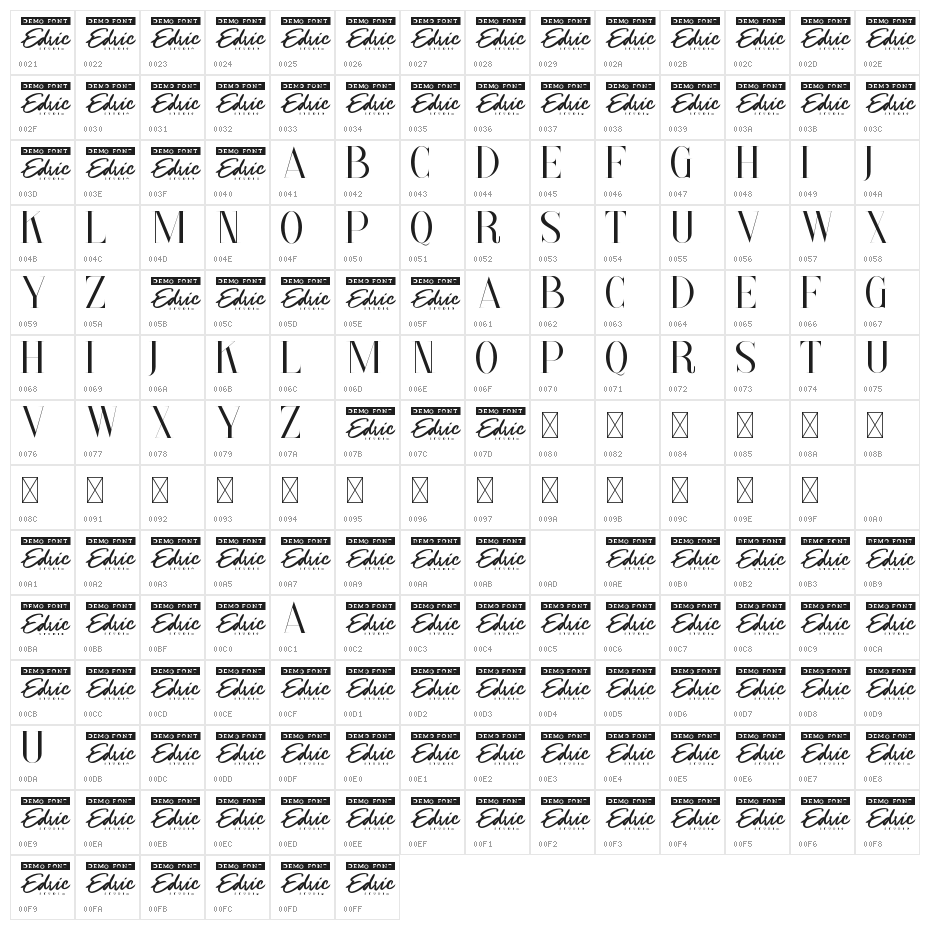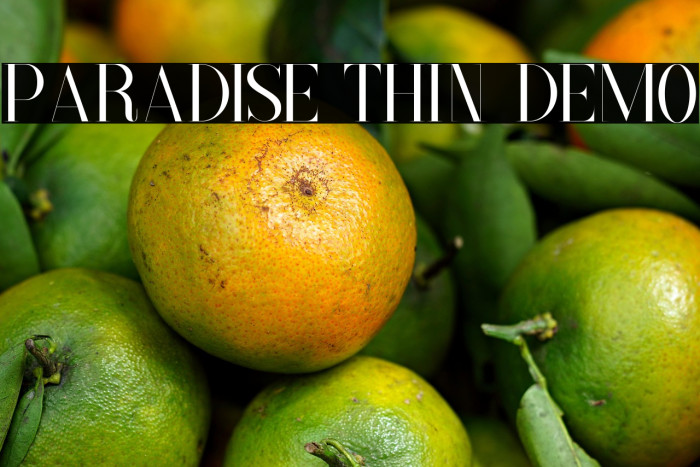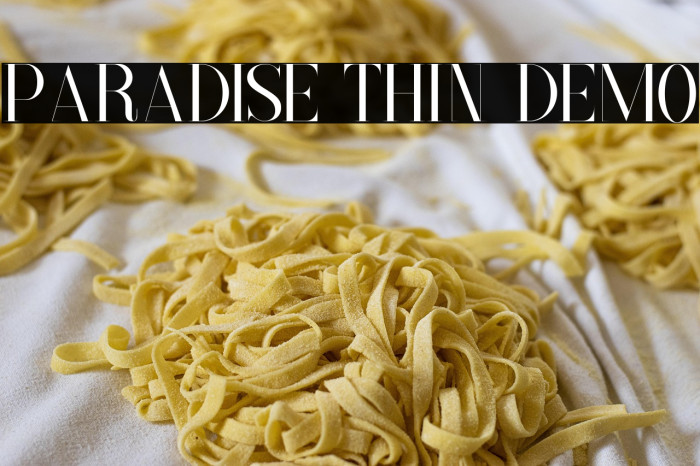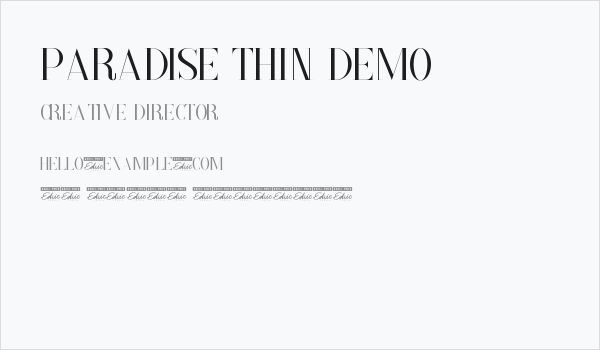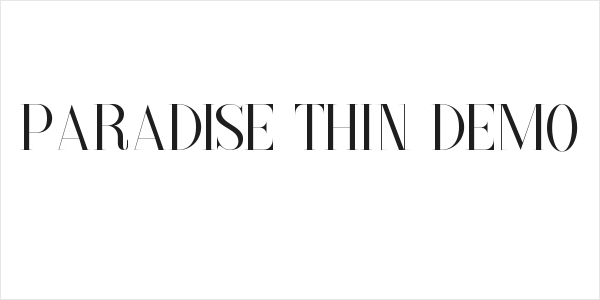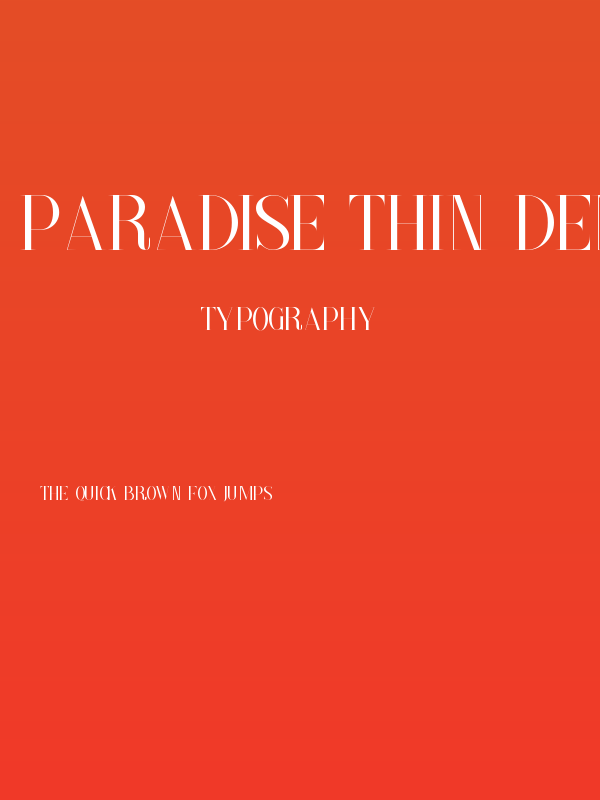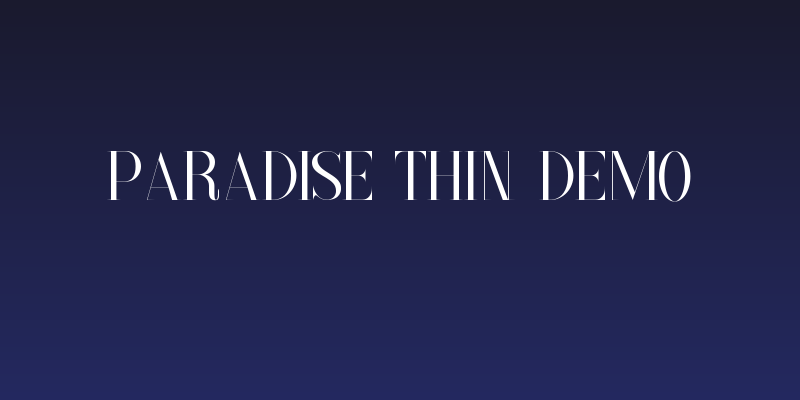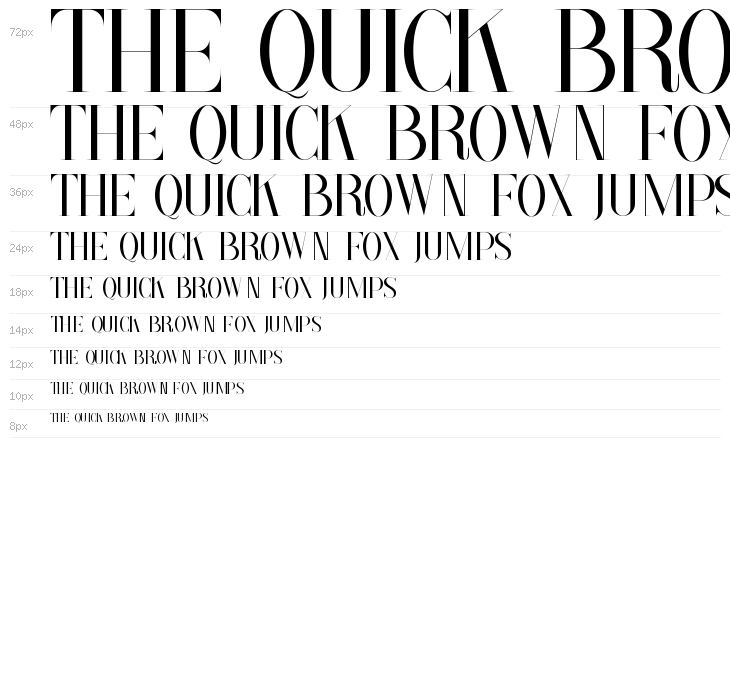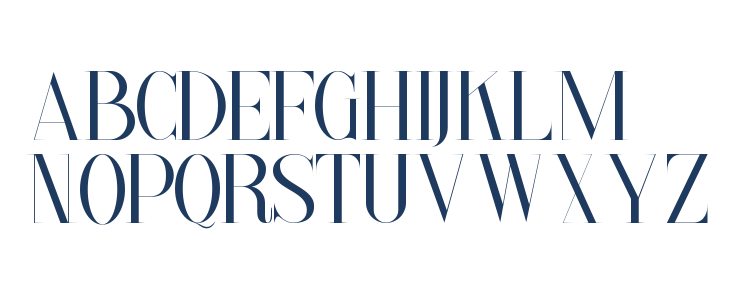
Paradise Thin Demo Font
Paradise Thin Demo Description
This font features a sleek and elegant design, characterized by its thin, elongated letterforms and high contrast between thick and thin strokes. The uppercase letters exhibit a refined and sophisticated style, with sharp serifs and a modern aesthetic. The lowercase letters maintain a consistent thinness, enhancing the font's delicate appearance. The overall design is both stylish and contemporary, making it suitable for a variety of design applications. The font's clean lines and graceful curves contribute to its luxurious and upscale feel, ideal for projects that require a touch of elegance and class.
| Use Case | Logos, Headlines, Editorial design |
| Proposed Projects | Ideal for luxury branding, fashion magazines, wedding invitations, and high-end product packaging. |